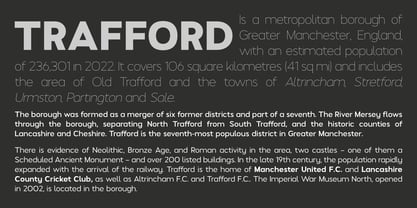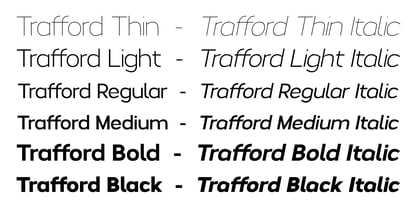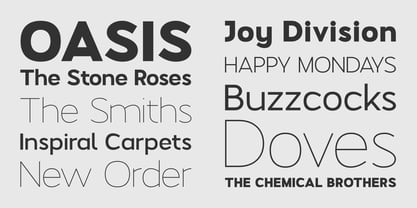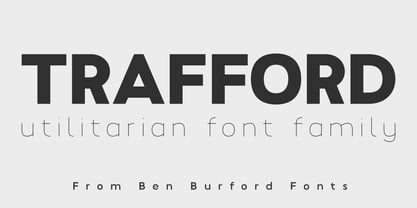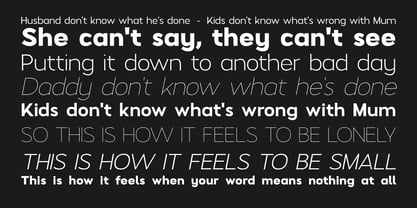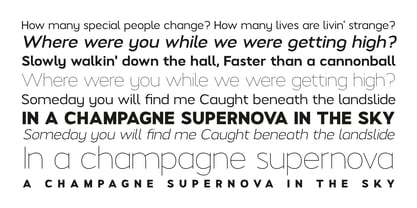
Trafford
by Ben Burford Fonts
The Trafford Font Family was designed by Ben Burford and published by Ben Burford Fonts. Trafford contains 12 styles and family package options. More about this family
Trafford has its roots in Modern design, its bold look giving it strength yet having a playful nature. with just a nod to mid century design it will give any project a statement of individualism be it print or digital media.